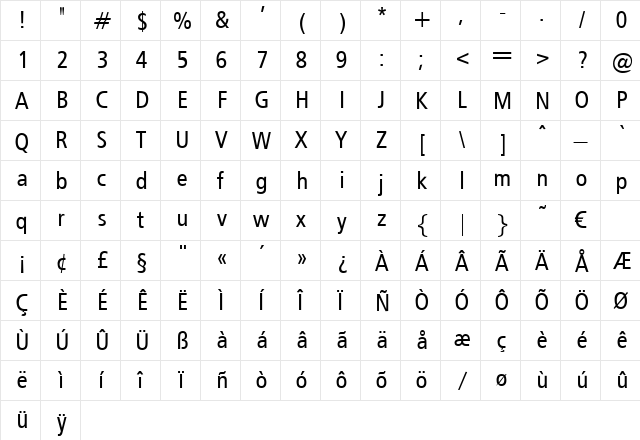
CarlosNoseven Regular
Design Context for CarlosNoseven Typeface
CarlosNoseven is a composed and adaptable typeface that performs quietly and consistently across a wide range of design contexts.
Pro Tip: Use CarlosNoseven in both headline and body roles to test its range before committing to a single application.